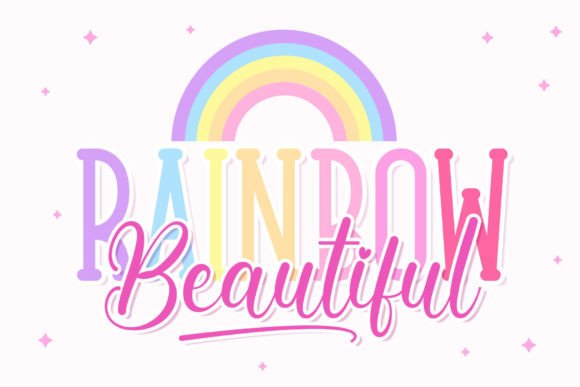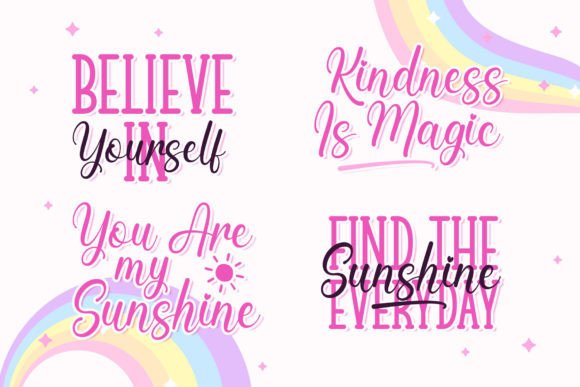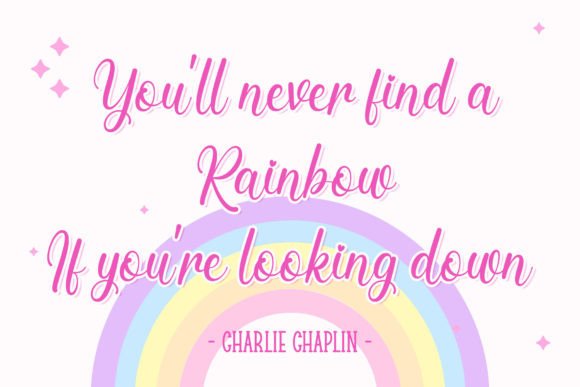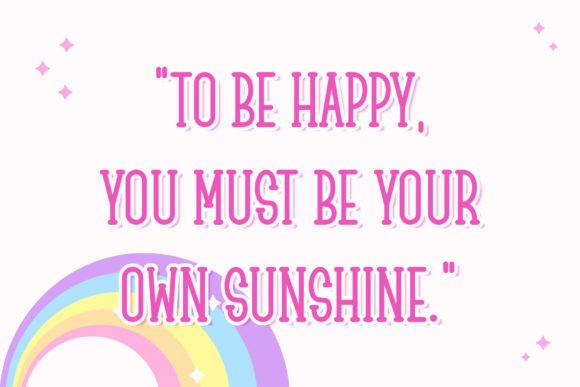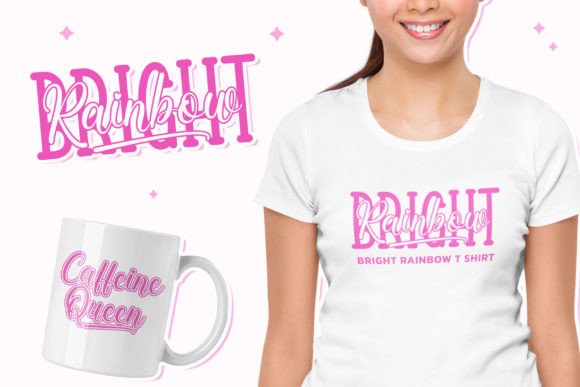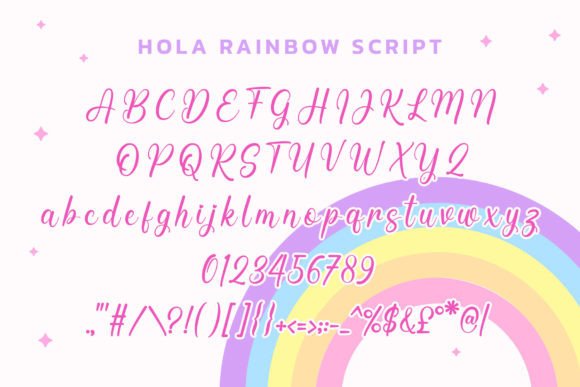
Introduction to Hola Rainbow Duo Font
Hola Rainbow is a fun and playful font duo with a stylish script and serif display font.
This typeface is fresh and lovely and is suitable for cute and attractive rainbow designs .
Key Features of Hola Rainbow Duo Font